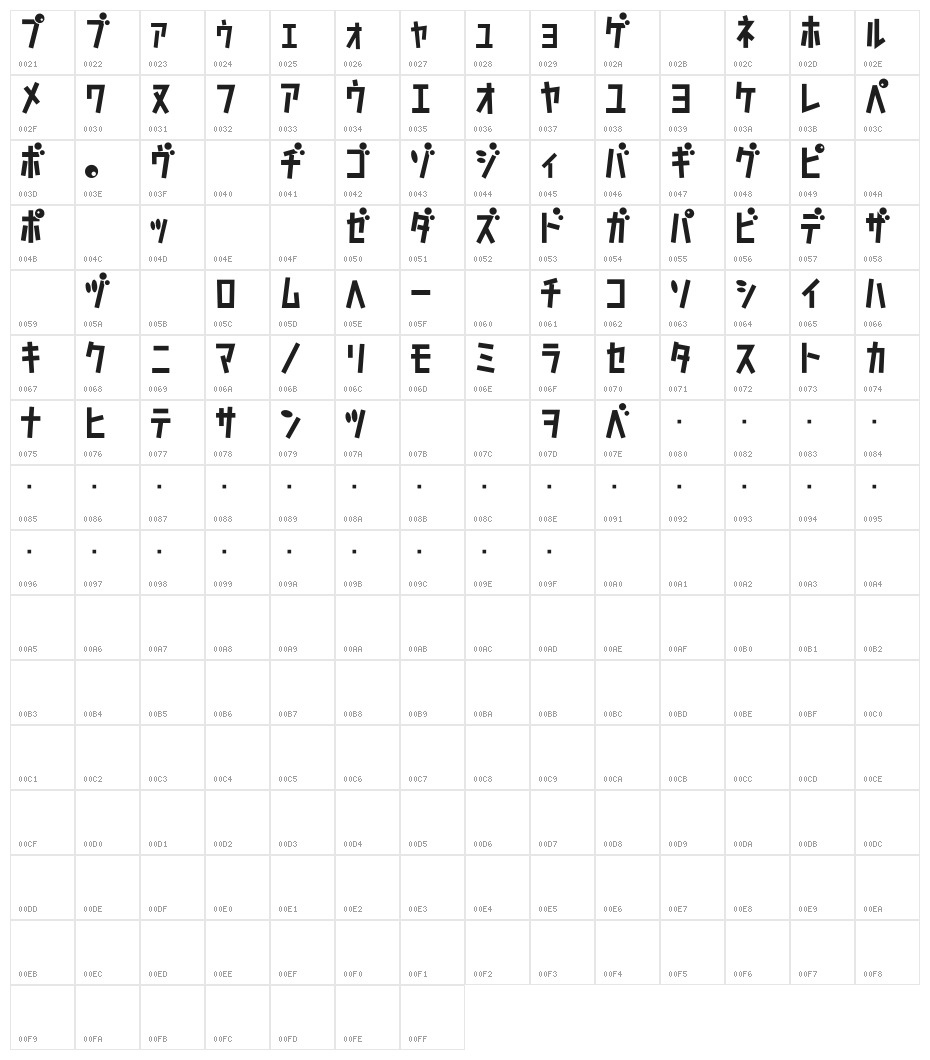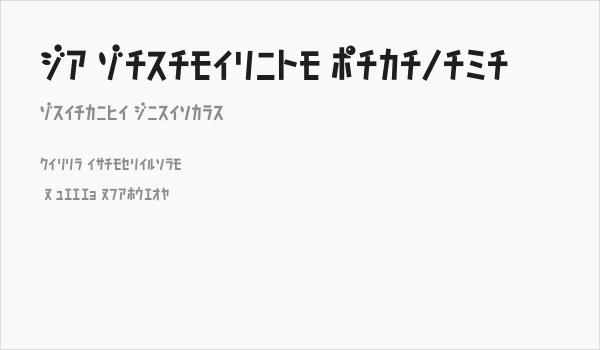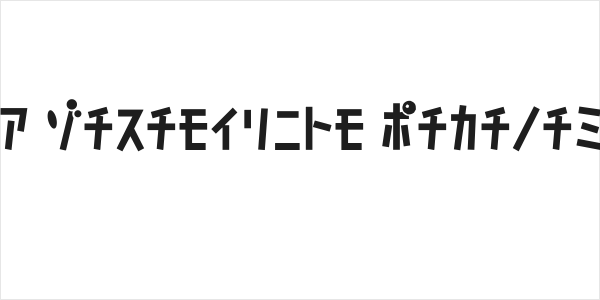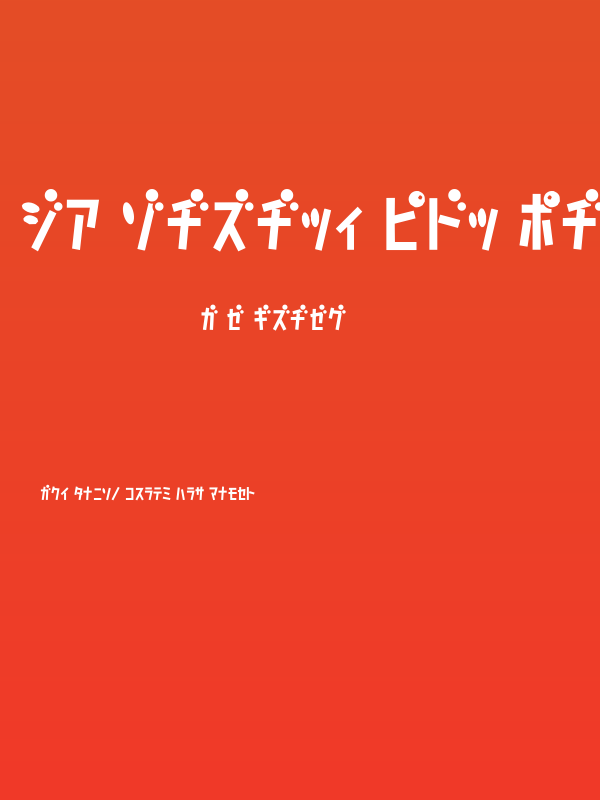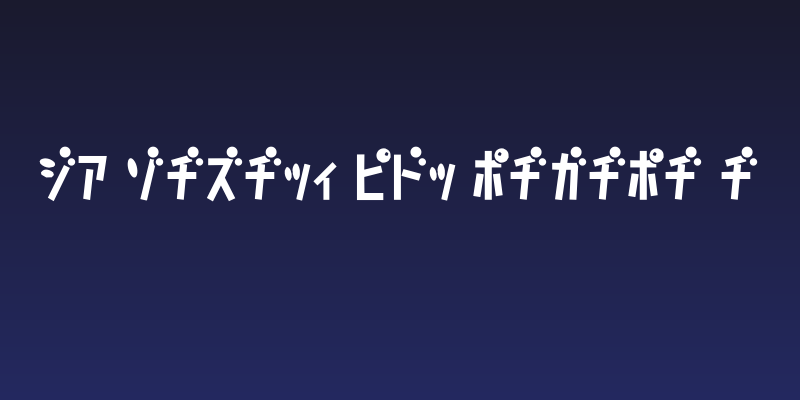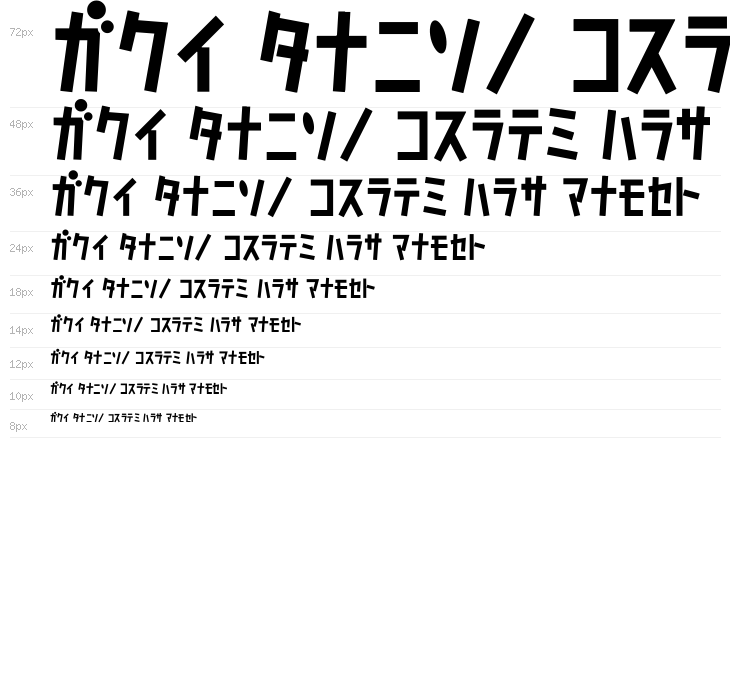
D3 Caramelism Katakana Font
D3 Caramelism Katakana Description
This font features bold, angular characters with a distinct geometric style, reminiscent of traditional Japanese Katakana script. The strokes are thick and uniform, giving the font a strong and impactful presence. The characters are slightly condensed, enhancing the compact and structured appearance. This style is ideal for creating a modern and edgy aesthetic, suitable for various design applications. The font's boldness and clarity make it highly legible, even at smaller sizes, while the unique character shapes add a touch of cultural flair and artistic expression.
Proposed ProjectsIdeal for branding, posters, and cultural event promotions.